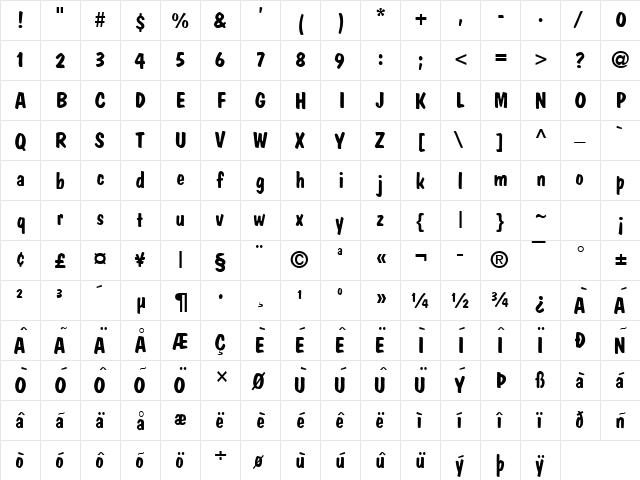
Danto Normal
Design Context for Danto Typeface
Danto is a composed and adaptable typeface that performs quietly and consistently across a wide range of design contexts.